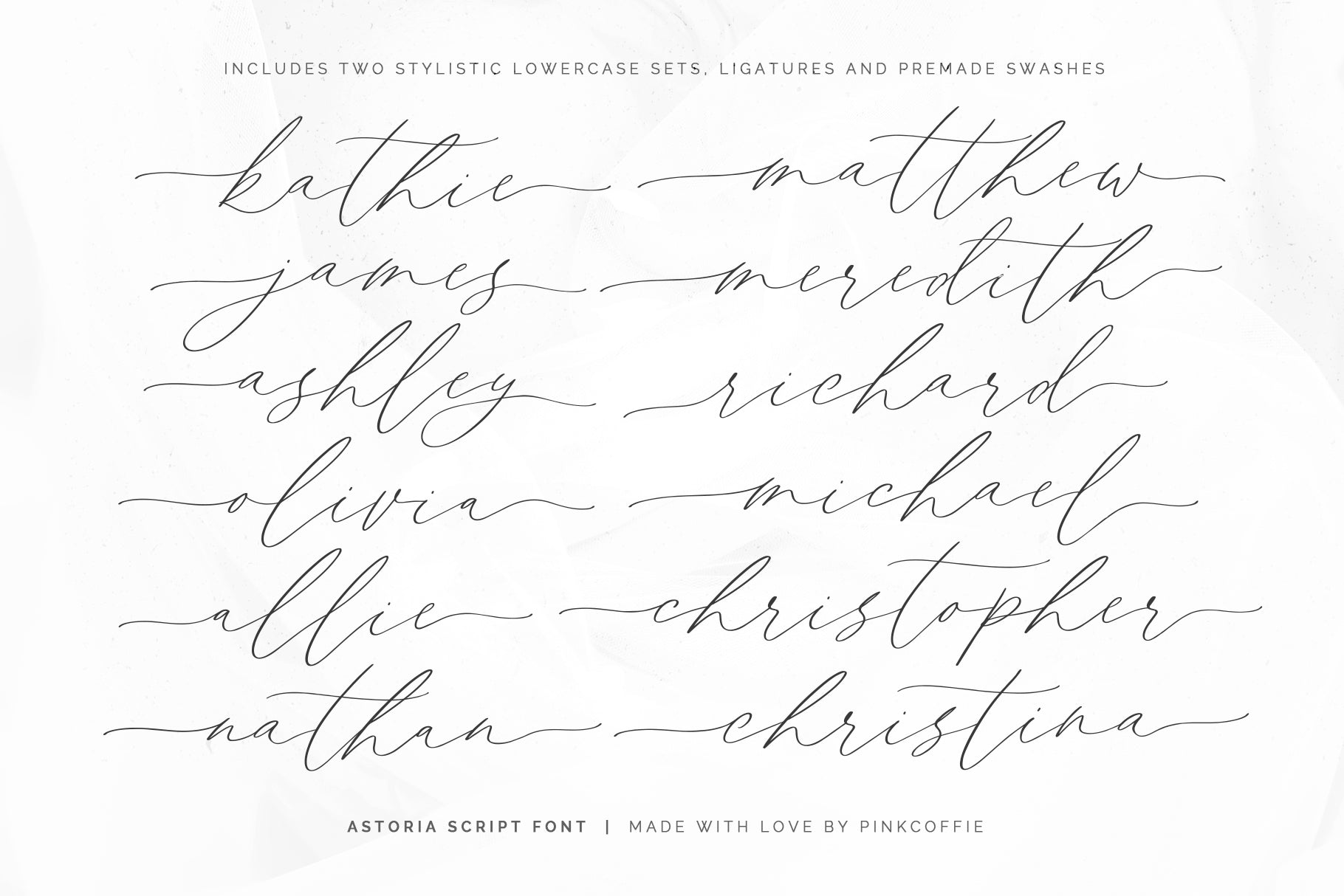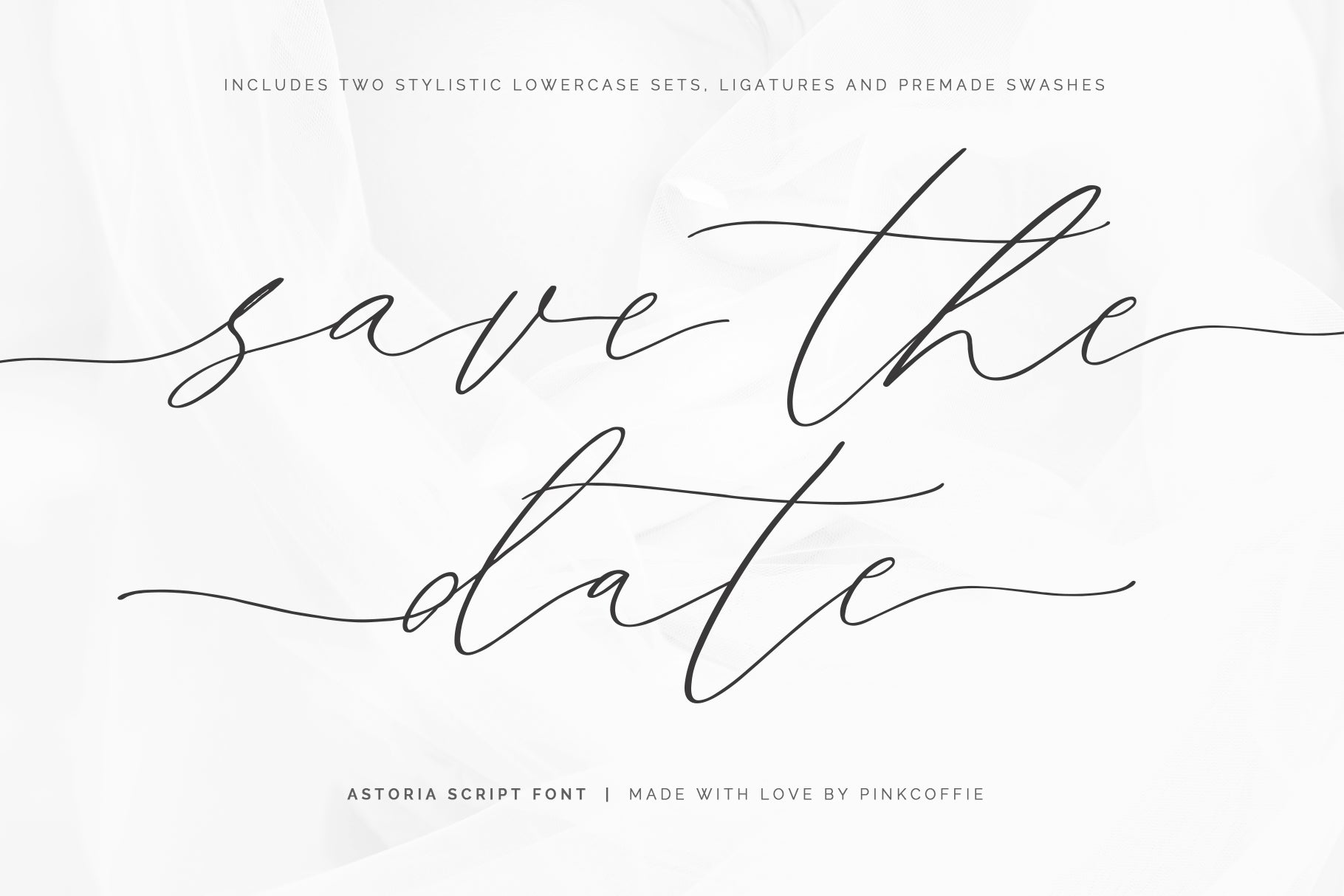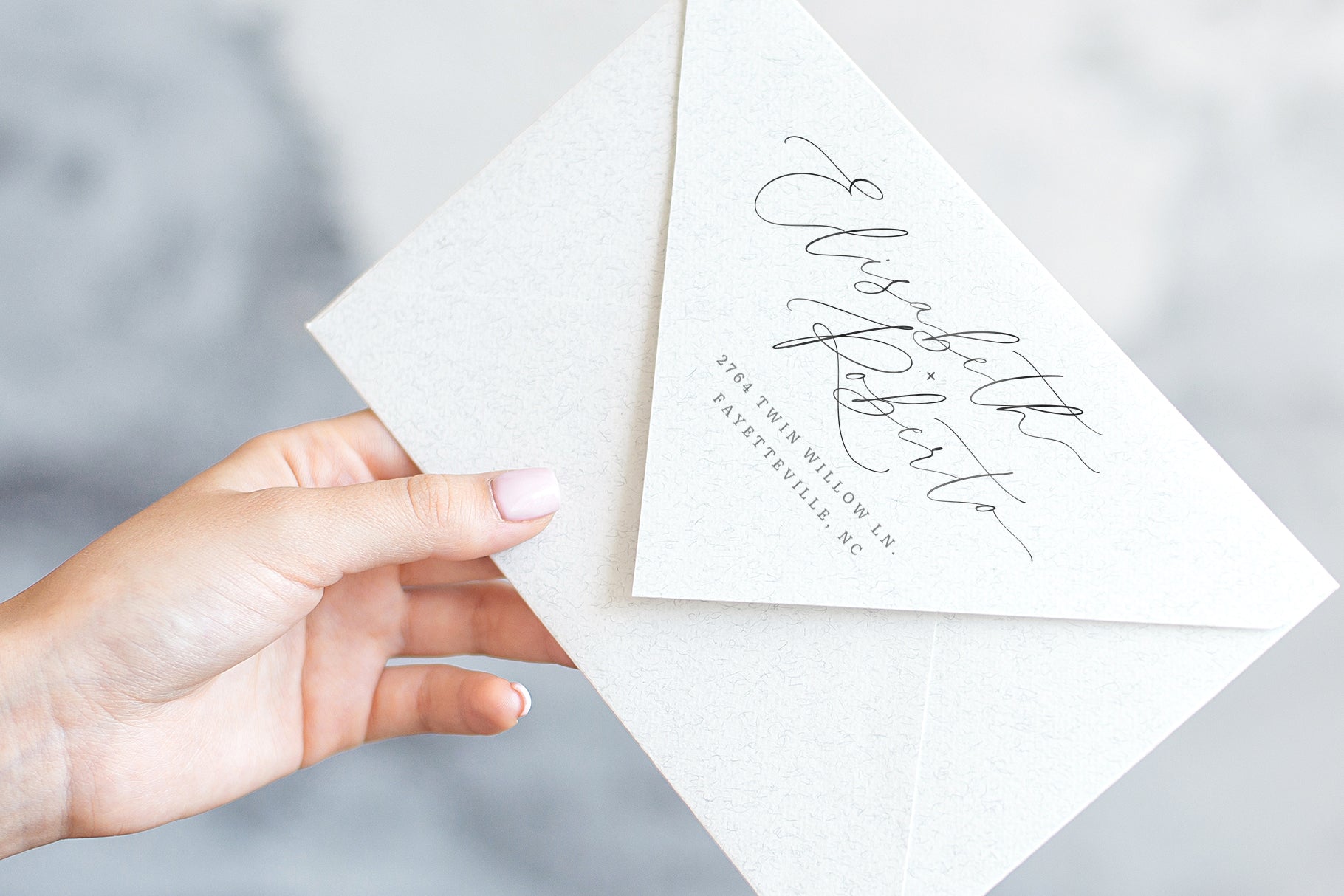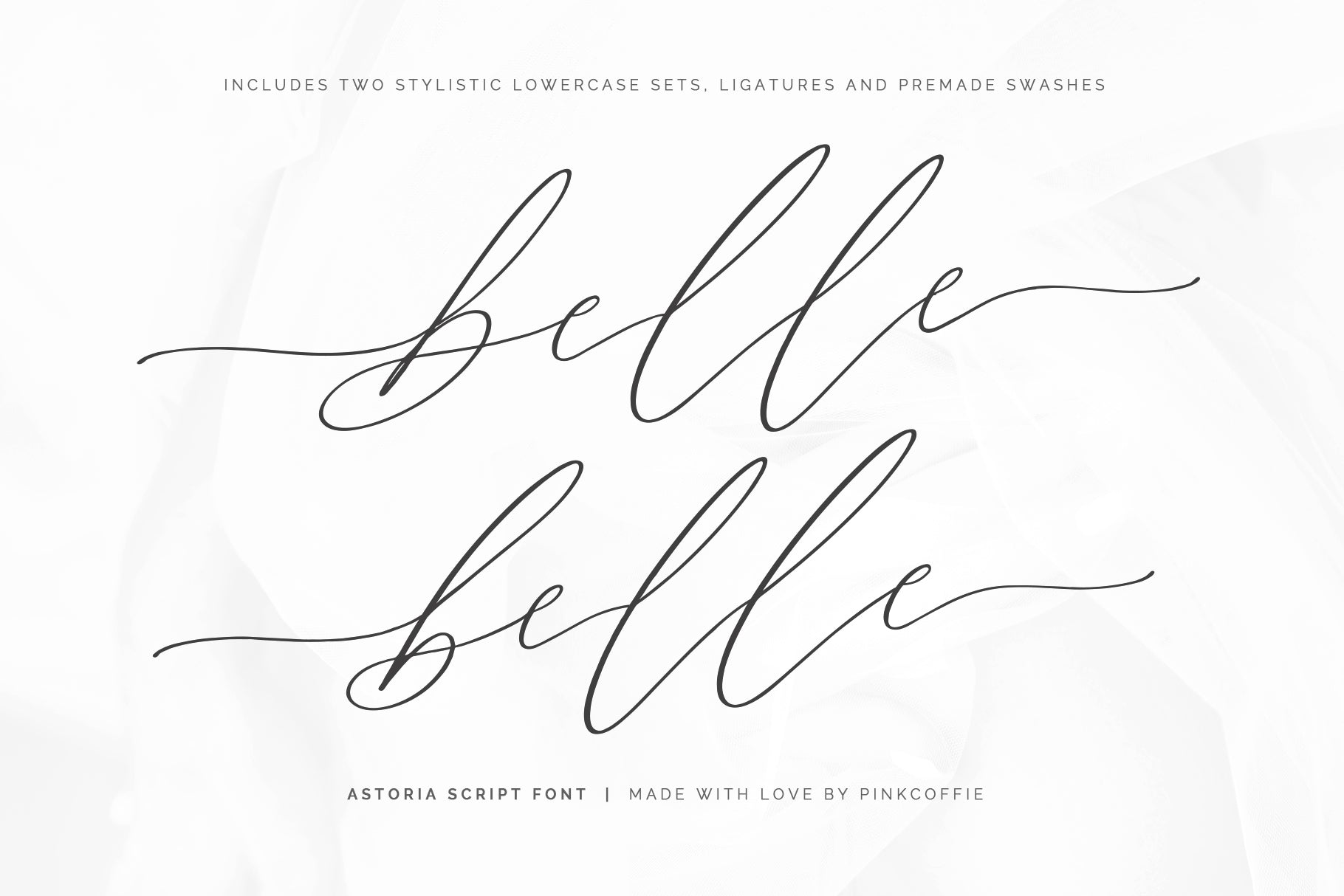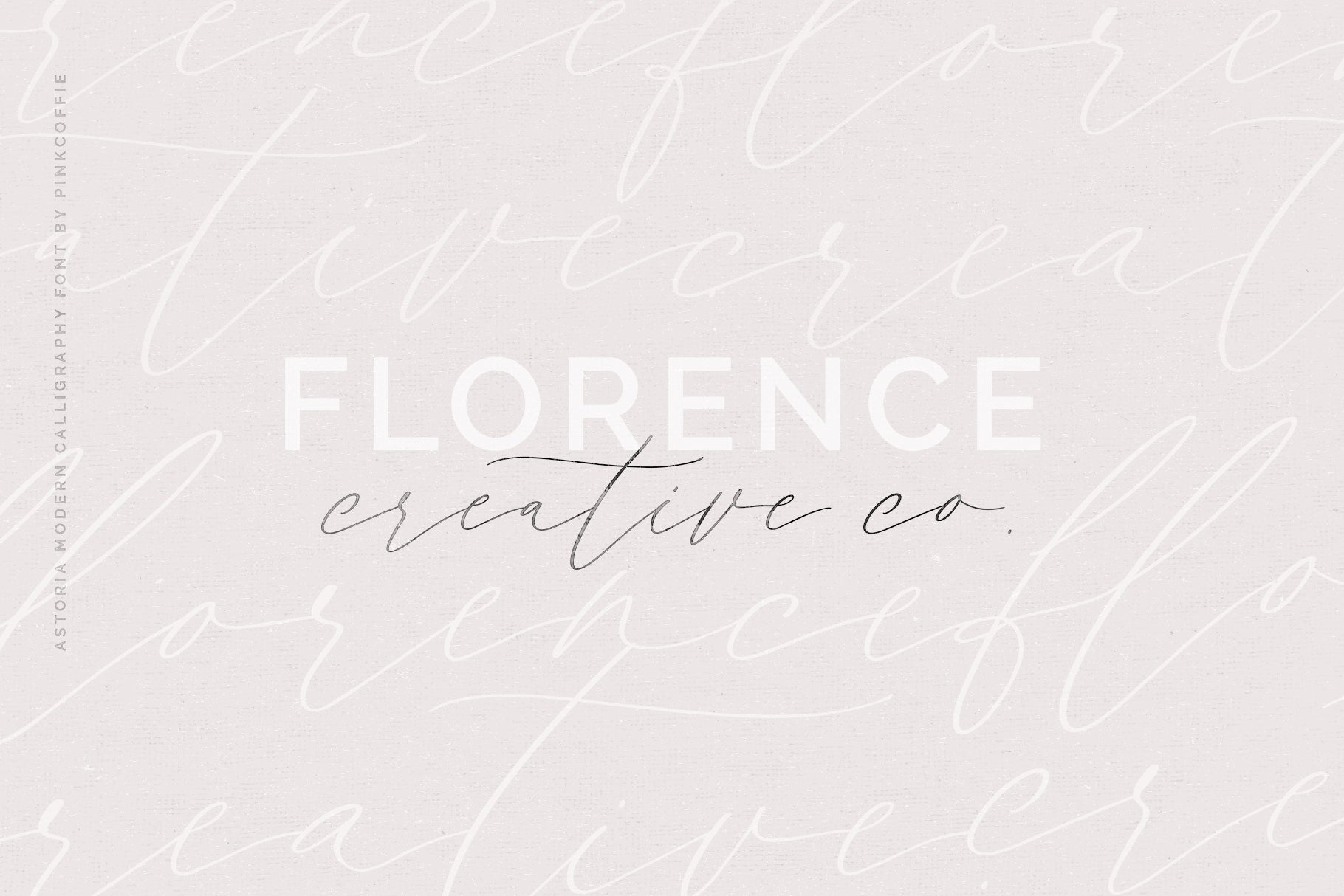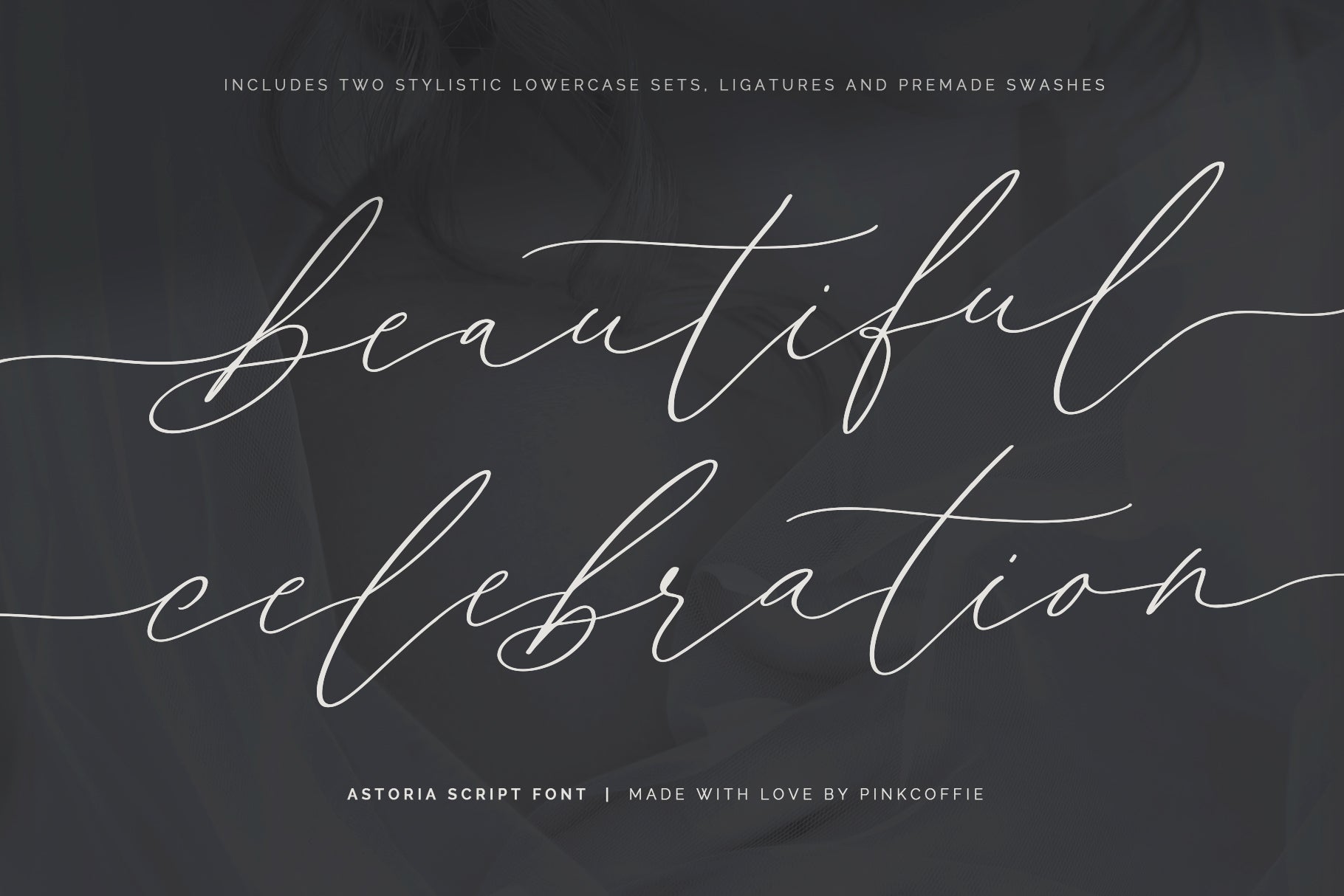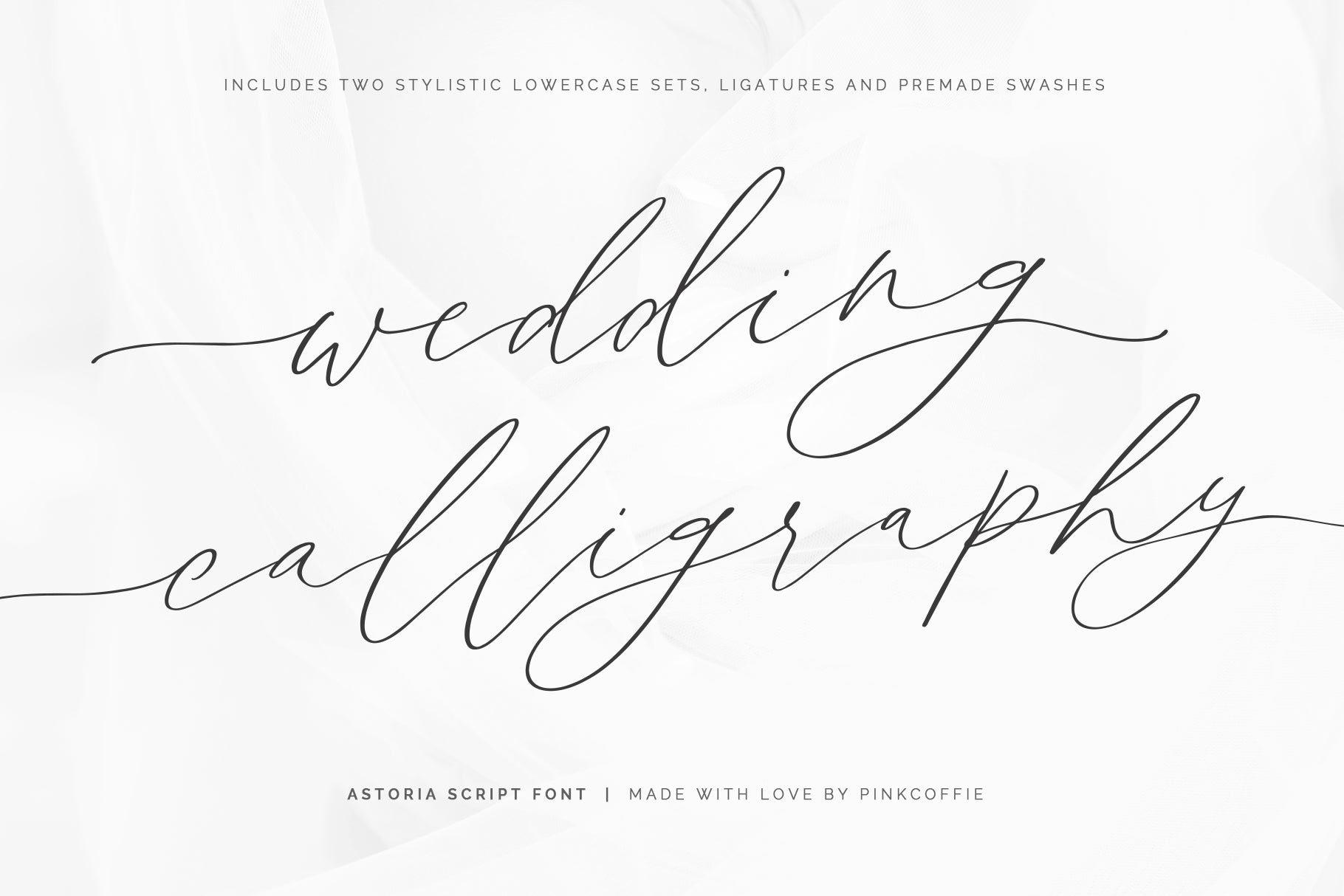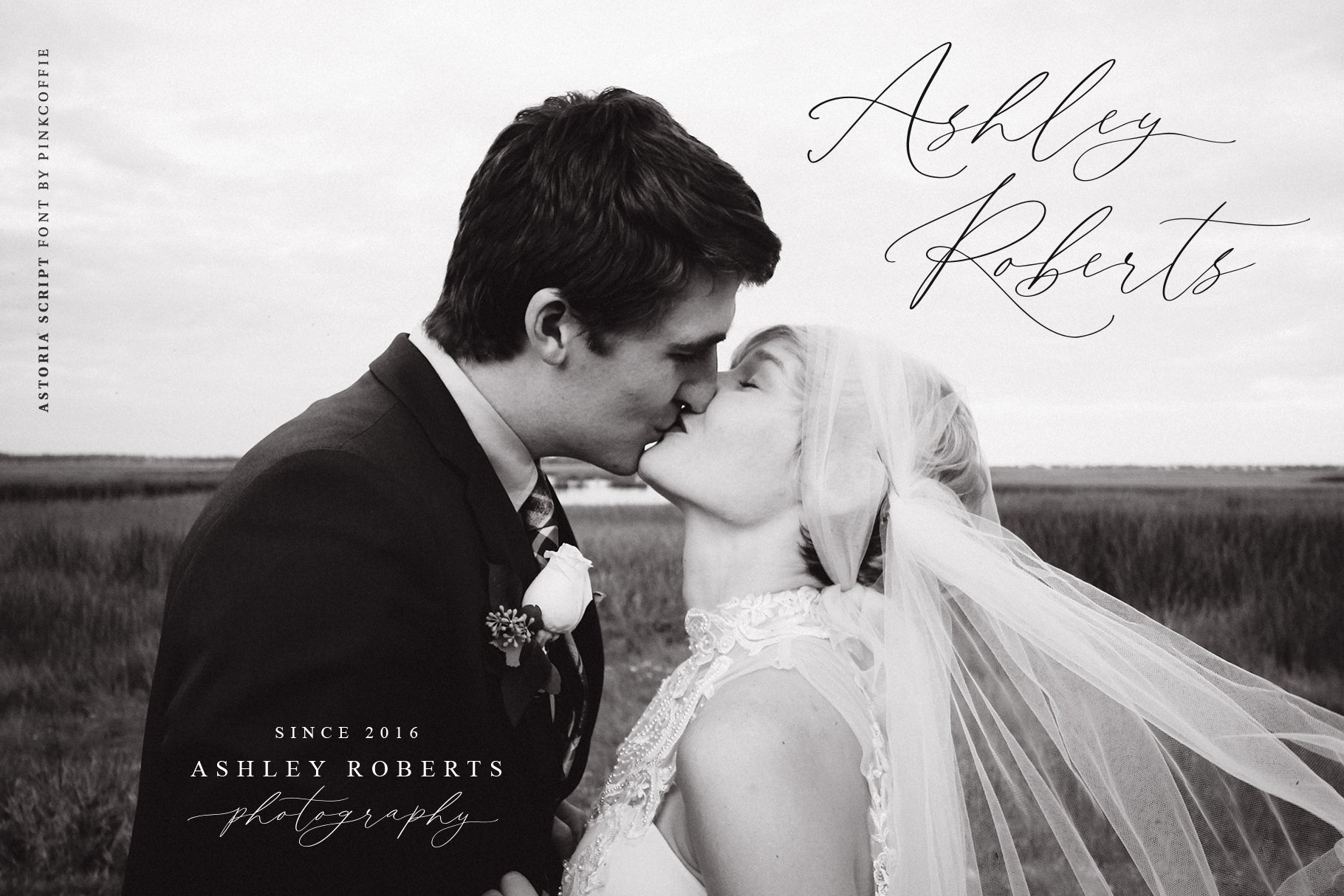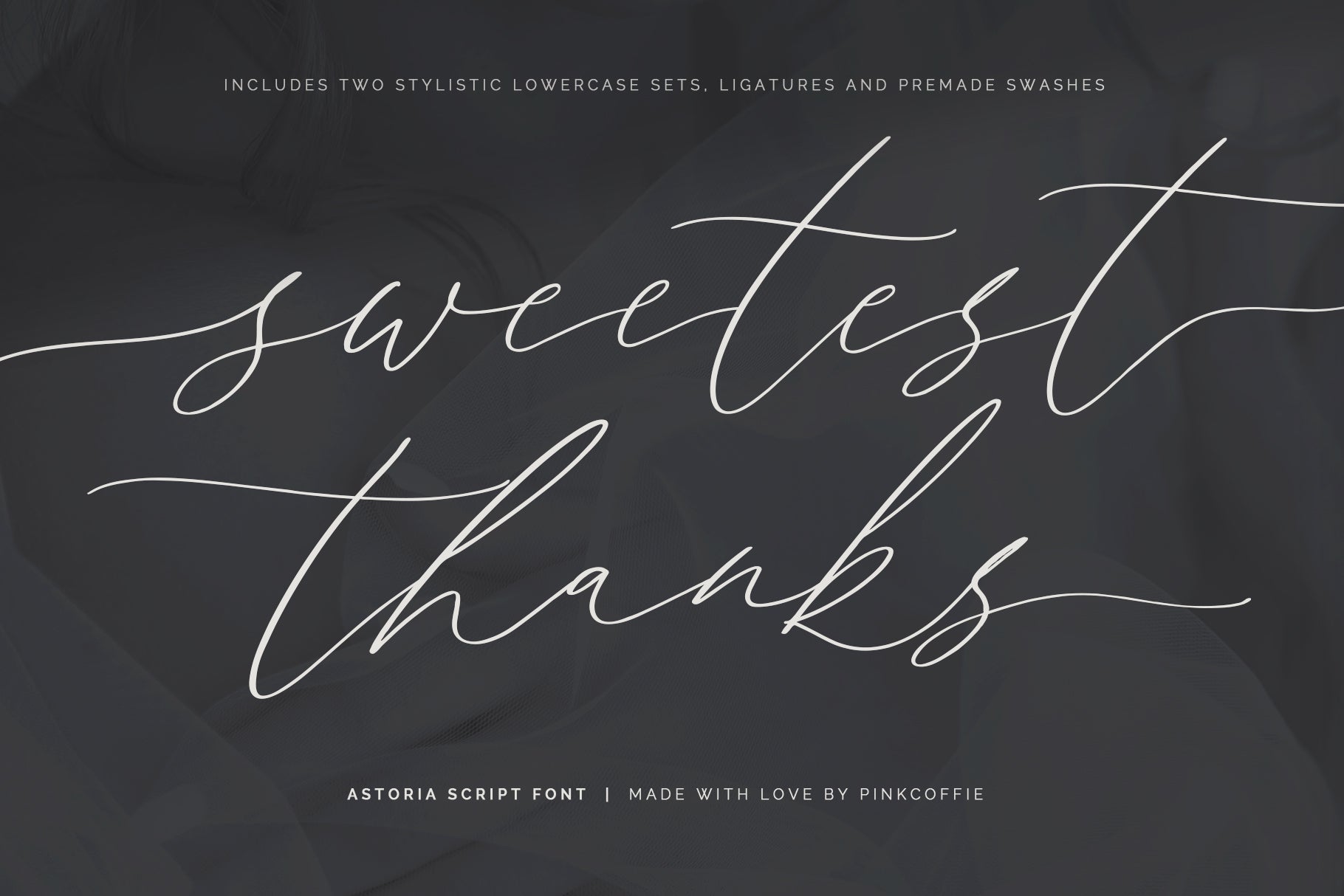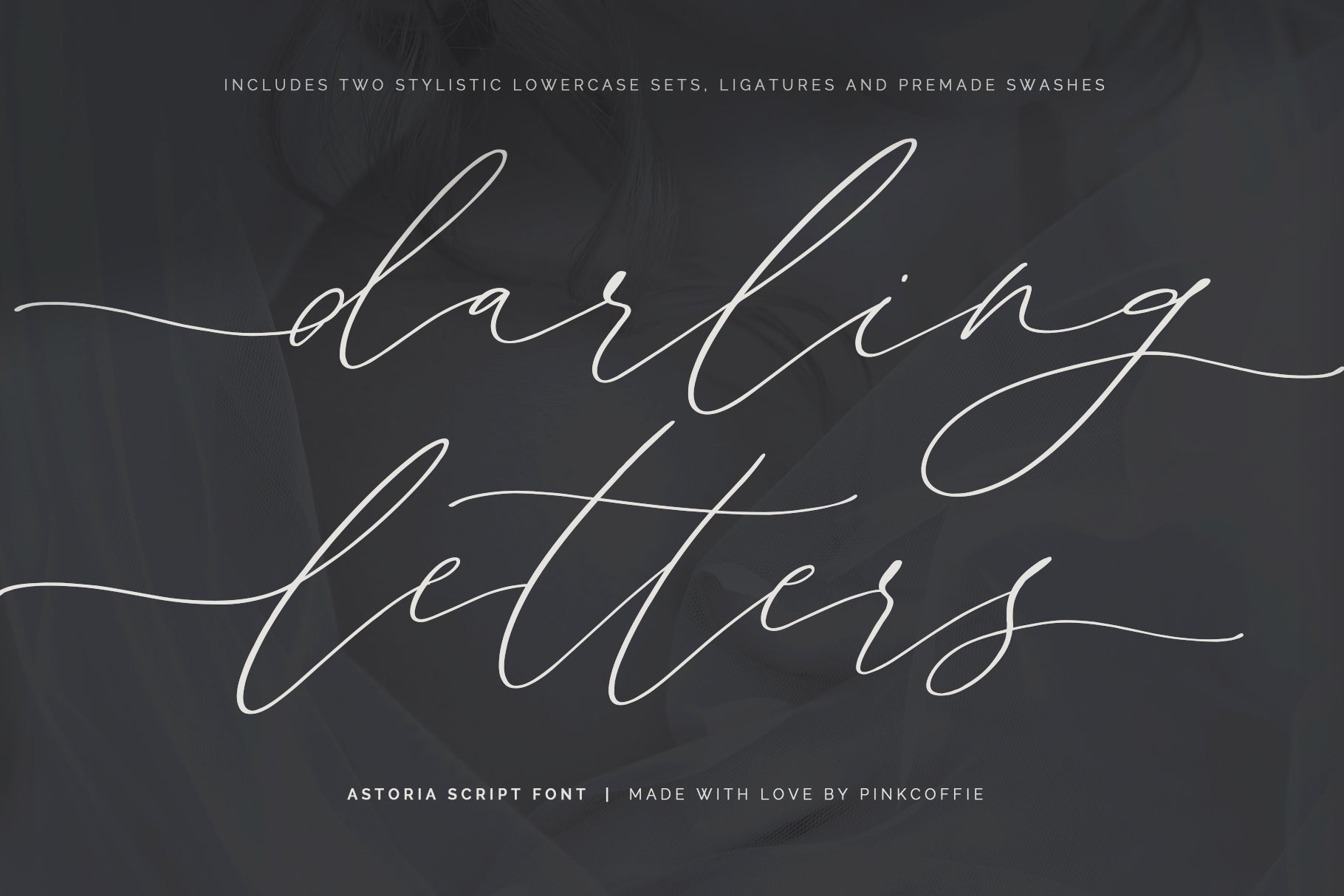
Say hello to Astoria, an elegant modern calligraphy font inspired by delicate inky hand lettering, gorgeous wedding calligraphy, and trending minimal branding designs.
Crafted with love and care, this hand lettered script font features delicate lines, elegant curves, and a mix of classic and modern letterforms that will add a unique and romantic touch to your wedding invitations and stationery & comes packed with multilingual support, double-letter ligatures, bonus lowercase letter alternates, two lowercase letter sets and two sets of premade lowercase swashes to mix and match.
- Astoria Script - the main font containing the 1st lowercase set and OpenType features
- Astoria Script Alt - includes the lowercase stylistic alternates instead of the 1st set
- Astoria Script Left Swashes - 1st set of beginning lowercase swashes
- Astoria Script Right Swashes - 1st set of ending lowercase swashes
- Astoria Script Left Swashes Alt - 2nd set of beginning lowercase swashes
- Astoria Script Right Swashes Alt - 2nd set of ending lowercase swashes